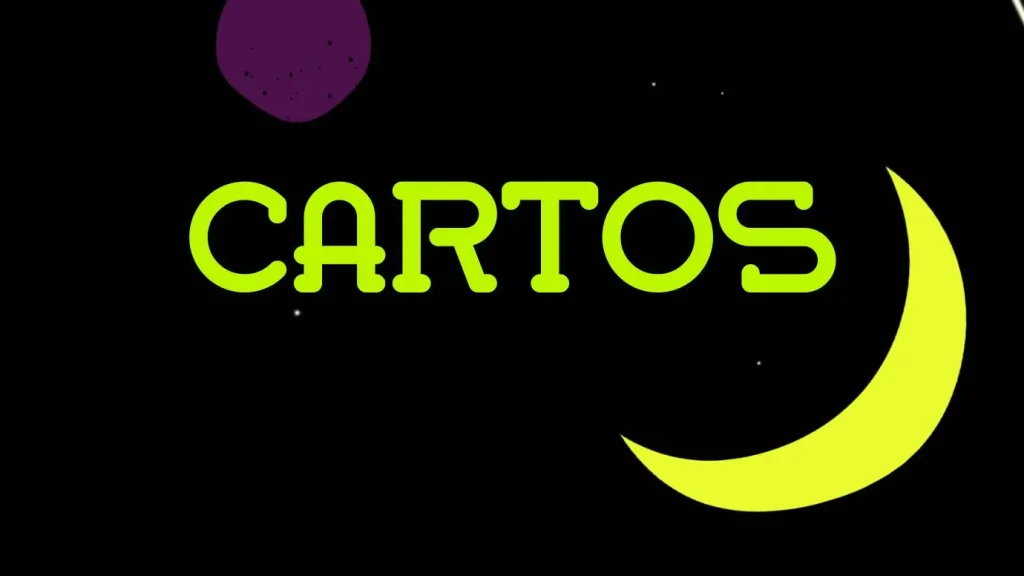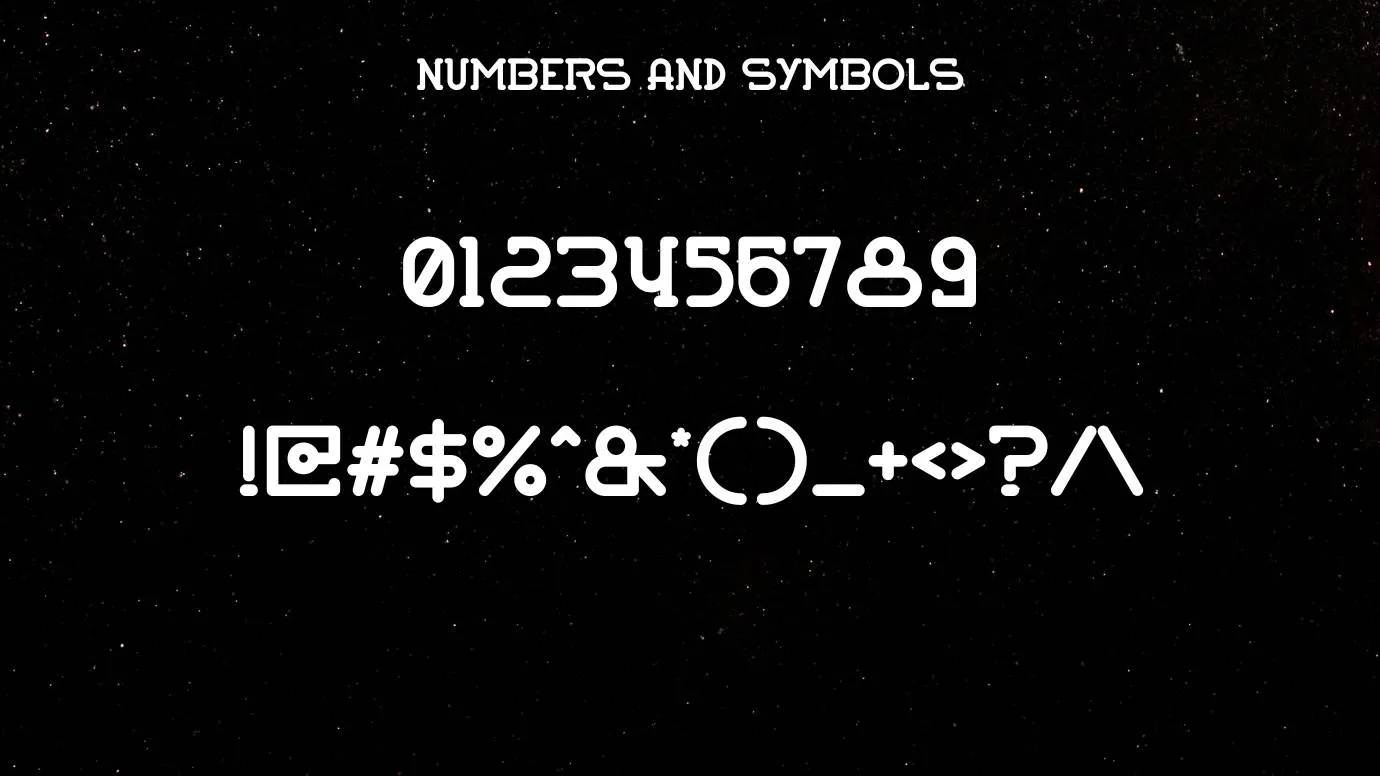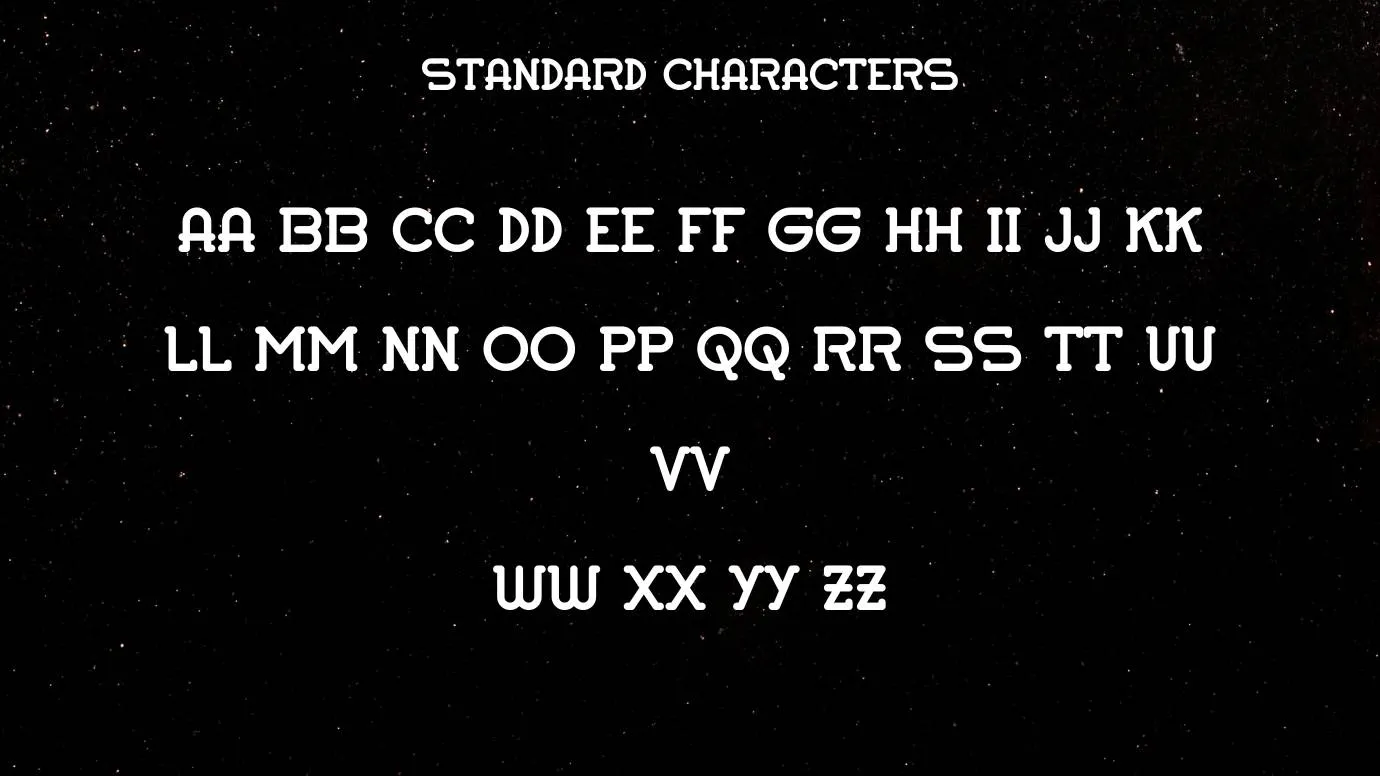
This fancy style is ideal for a variety of design applications. This typeface has a distinctive textural style, so the letter works well for postcard designs.
Tokokoo Studio created this fancy design. Cartos Font style has uppercase letters, numerals, and lowercase, it features unique characters.
This fancy style is ideal for a variety of design applications. This typeface has a distinctive textural style, so the letter works well for postcard designs. It features 2048 digits per em and unique glyphs. It comes in two formats, TTF and OTF, and the font has ten styles. Greek, Cyrillic, and Latin character sets are all supported by the typeface.
The digital deluxe edition of this typeface has the capacity to create unique designs. This typeface is supported by many different worldwide languages. Pairings with the roselina script font are an amazing choice to create beautiful designs.
Main Features of the Cartos Font
The typeface offers a wide range of unusual applications that make it suited for various technical goals. This typeface works well for designing long paragraphs as well as comics.
As well as photographic design t-shirts and posters, it can also be used for designing symbols and making placards. Make exclusive designs by pairing them with other typefaces that are mentioned above.
This is a contemporary and sleek typeface the style is a fantastic option to design unique projects. There are capital and lowercase letters, digits, and punctuations in the font. This typeface includes amazing options for creating new designs. It has well-known characteristics that make it particularly useful for a variety of purposes.
Where we can use Cartos Font?
This typeface is perfect for use in a variety of design projects like poster designs, shirt designs, emblems, and other classic design projects.
What is the category of Cartos Font?
This stylish typeface belongs to the category of the fancy family of fonts.